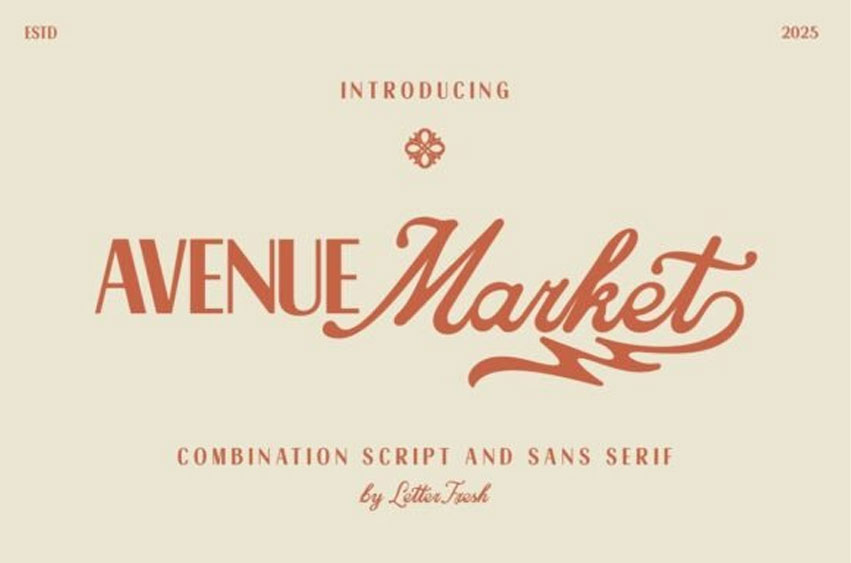
Avenue Market Font
Avenue Market Font Duo, a captivating font duo that blends classic elegance and modern simplicity. Discover the perfect blend of rustic elegance and bold modernity with the AVENUE MARKET DUO font, a versatile font combination that captures the authentic, handcrafted spirit of a local market.
This striking duo pairs a confident, retro-style Sans Serif with a beautifully flowing, yet grounded, Script style, creating an incredible dynamic perfect for branding and packaging. The sans-serif letters are solid, slightly condensed, and commanding, while the script features elegant, spontaneous swashes and an organic flow, complete with stunning stylistic alternates that give it a genuine custom-lettered look.
The AVENUE MARKET DUO typeface is ideal for creating memorable logos, engaging food and beverage packaging, artisanal craft labels, and vintage-style apparel designs. This unique combination font allows you to instantly generate a professional, hand-drawn aesthetic with a built-in balance of strength and sophistication.
The Avenue Market Duo font is also PUA-encoded, ensuring effortless access to all glyphs, swashes, and alternate characters to help you customize your creations with ease.